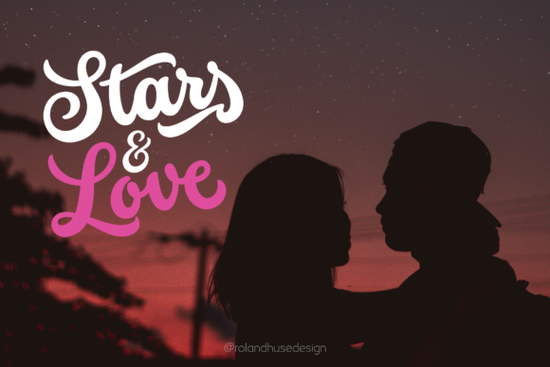
If you are looking for a typeface that feels like a warm hug but with a distinct retro twist, finding the right script can be tricky. You want something bold enough to stand out on a t-shirt but elegant enough for a wedding invitation. The Stars & Love Font hits that sweet spot perfectly. It is a bold, cursive brush calligraphy font that draws heavy influence from retro calligraphy styles, offering a friendly rounded look mixed with flourished elegance.
For designers and crafters, the challenge often lies in finding a font that doesn't look generic. Many scripts feel too stiff or too messy. This typeface solves that by balancing structure with flow. It is particularly useful for print-on-demand sellers who need text that remains legible even when printed small on mugs or stickers. The rounded nature of the letters makes it approachable, while the bold strokes ensure it grabs attention on social media graphics.
What makes this typeface stand out for branding?
When you are building a brand identity, consistency is key. This font offers a variety of stylistic alternates and contextual alternates, which means you can change the look of specific letters to create a unique logo. You aren't stuck with the same "S" or "L" every time. This flexibility is crucial for small business owners who want their logo to feel custom-drawn rather than typed.
The terminal forms add a nice touch of sophistication. Instead of sharp, aggressive ends, the strokes taper off smoothly. This makes it an excellent choice for beauty brands, boutiques, or lifestyle bloggers. If you are comparing it to other options, you might find that while the Bella Bellia font offers a classic elegance, this one brings a bit more personality and modern retro flair to the table.
Is it suitable for wedding and event stationery?
Absolutely. While it has a bold presence, the cursive flow keeps it romantic. It works beautifully on save-the-dates, menu cards, and welcome signs. The ligatures (where two letters connect naturally) help maintain the illusion of real handwriting. This is vital for event stationery, where a mechanical look can ruin the mood.
However, if your wedding theme is ultra-traditional or very minimalist, you might want to pair it with a simpler serif. For those seeking something strictly formal and high-contrast, the Bridesmaid font is often a go-to for traditional ceremonies. But for a boho-chic or vintage-themed wedding, the rounded, friendly vibe of this script is often the better fit.
How do you get the best results with alternates?
To truly make this font shine, you need to dig into the OpenType features. Most design software, like Adobe Illustrator or Canva (with Pro), allows you to toggle these features. Here is how to approach it:
- Stylistic Alternates: Use these to swap out standard letters for more decorative versions. This breaks up repetitive patterns in words.
- Contextual Alternates: These happen automatically as you type, ensuring the letters connect logically based on what comes before and after them.
- Standard Ligatures: Keep these on to ensure pairs like "fi" or "fl" look connected and natural.
Taking the time to manually adjust these settings can turn a good design into a great one. It stops the text from looking like it was just typed on a keyboard. For example, if you are designing a quote for Instagram, swapping the first letter of key words to a more flourished alternate can create a nice visual rhythm.
Where else can you use this style?
Beyond branding and weddings, this typeface is a powerhouse for the creator economy. It is perfect for:
- Greeting Cards: The "friendly rounded look" mentioned in the description makes it ideal for birthdays and anniversaries.
- Apparel: Because it is bold, it reads well on dark fabrics where thin scripts might get lost.
- Packaging: Use it on labels for handmade soaps, candles, or baked goods to add a personal touch.
If you enjoy this specific aesthetic bold yet cursive you might also want to explore the Bethany Script font. It shares that chunky, brush-style DNA and is another fantastic option for projects requiring high impact. Alternatively, if you need something slightly softer and more whimsical for children's products, the Buttercup font offers a lighter, airier feel while staying in the script family.
Final thoughts on choosing the right script
Choosing a font is about matching the emotion of your project. You can check out the full details and download options for the Stars & Love Font to see if it fits your current workflow. It is a versatile tool that bridges the gap between retro cool and modern elegance.